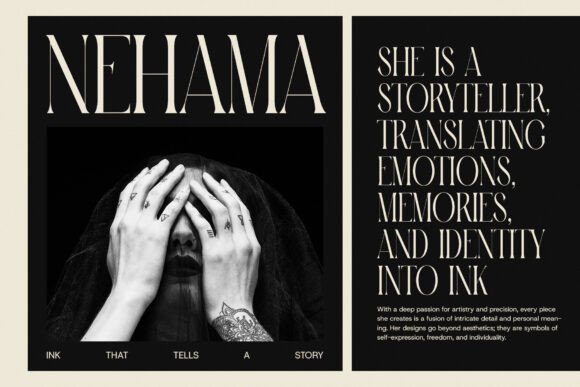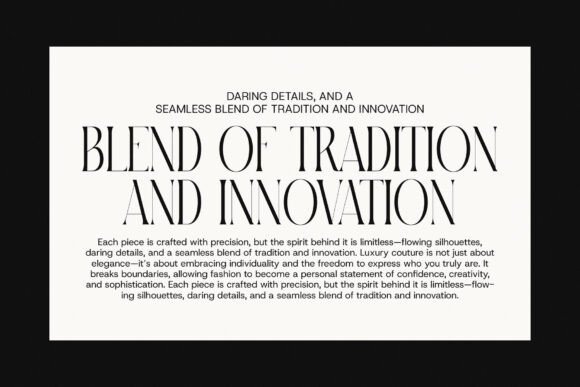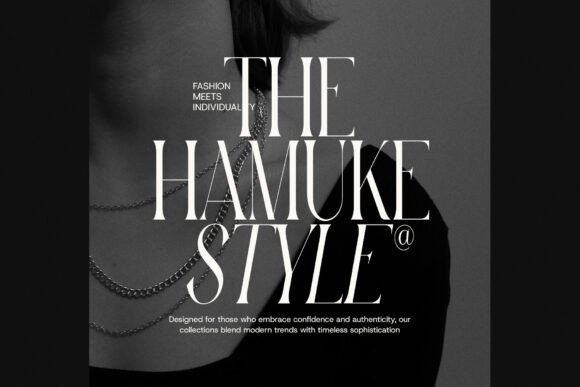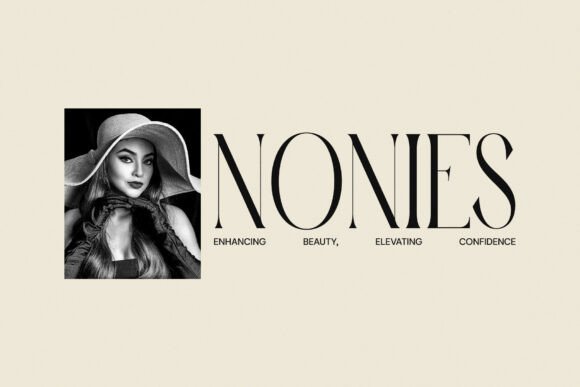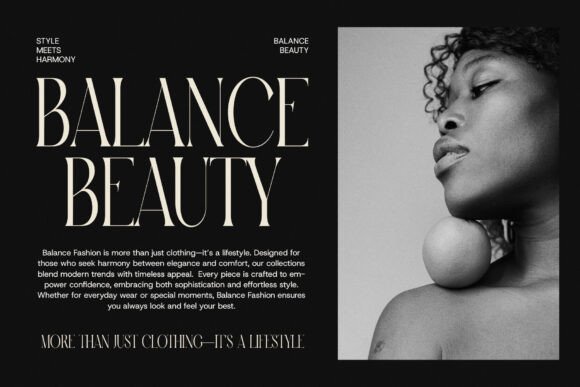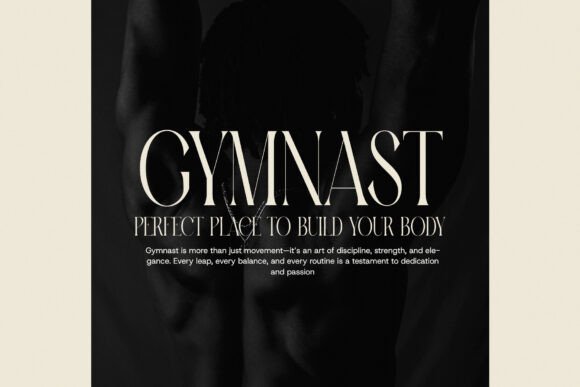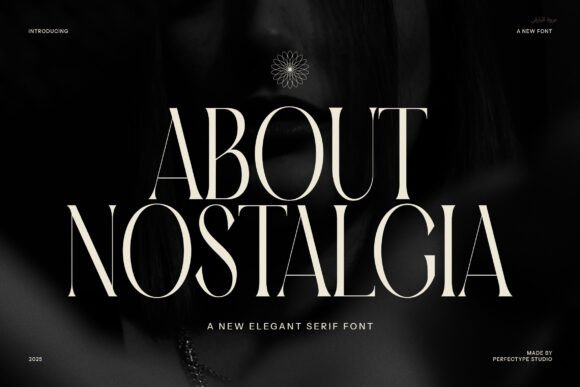
Discover the Timeless Elegance of Nostalgia Font
In the world of typography, few fonts manage to strike a balance between classic sophistication and modern flair. Nostalgia Elegant Serif Font is one such typeface that effortlessly merges traditional design elements with a contemporary twist, making it a standout choice for designers and crafters seeking to elevate their projects.
The Essence of Nostalgia Font
Nostalgia Elegant Serif Font is a sophisticated and contemporary serif typeface designed to bring a touch of elegance and refinement to any design project. Its graceful and stylish letterforms are meticulously crafted, featuring beautiful, unique ligatures and alternate characters that add a polished, distinctive look to your typography.
Key Features of Nostalgia Font
- Sophisticated Design: Nostalgia boasts a classic serif design with smooth curves and precise serifs, making it perfect for projects that demand an elegant, high-end aesthetic.
- Unique Ligatures and Alternates: The font includes carefully designed ligatures and alternate forms, providing a unique touch to your typography and allowing for a high degree of customization.
- Versatility: Nostalgia is incredibly versatile, making it suitable for a wide range of applications, from logos and branding to websites, magazine layouts, and product packaging.
- Readability: The font’s clear and elegant letterforms ensure excellent readability, making it an ideal choice for both print and digital media.
Ideal Applications for Nostalgia Font
Nostalgia Elegant Serif Font is perfect for a variety of design projects, particularly those that require a sophisticated and luxurious feel. Some of the ideal applications include:
- Logos and Branding: Add a sense of refinement and elegance to your brand identity with Nostalgia’s classic yet modern design.
- Fashion and Luxury Goods: The font’s high-end aesthetic makes it an excellent choice for fashion brands, luxury goods, and upscale product packaging.
- Websites and Digital Media: Nostalgia’s readability and elegant design make it perfect for websites, blogs, and digital publications.
- Magazine Layouts and Print Media: The font’s classic design and precise serifs ensure a professional look, making it ideal for magazine layouts, newspapers, and other print media.
Why Choose Nostalgia Font?
In a world where typography plays a crucial role in design, Nostalgia Elegant Serif Font stands out for its timeless elegance and versatility. Here are a few reasons why designers and crafters should consider Nostalgia for their projects:
- Timeless Design: Nostalgia’s classic design ensures that your projects will remain stylish and relevant for years to come.
- High-End Aesthetic: The font’s sophisticated design and elegant letterforms add a touch of luxury to any project.
- Easy to Read: Nostalgia’s clear and precise letterforms make it easy to read, ensuring that your message is communicated effectively.
- Customization: The font’s unique ligatures and alternate characters allow for a high degree of customization, enabling you to create a distinctive look for your brand or project.
Nostalgia Elegant Serif Font is a versatile and sophisticated typeface that brings a touch of timeless elegance to any design project. Its classic design, unique ligatures, and alternate characters make it an ideal choice for designers and crafters seeking to create high-end, stylish, and readable typography. Whether you’re working on a logo, website, magazine layout, or product packaging, Nostalgia is sure to elevate your design and leave a lasting impression.